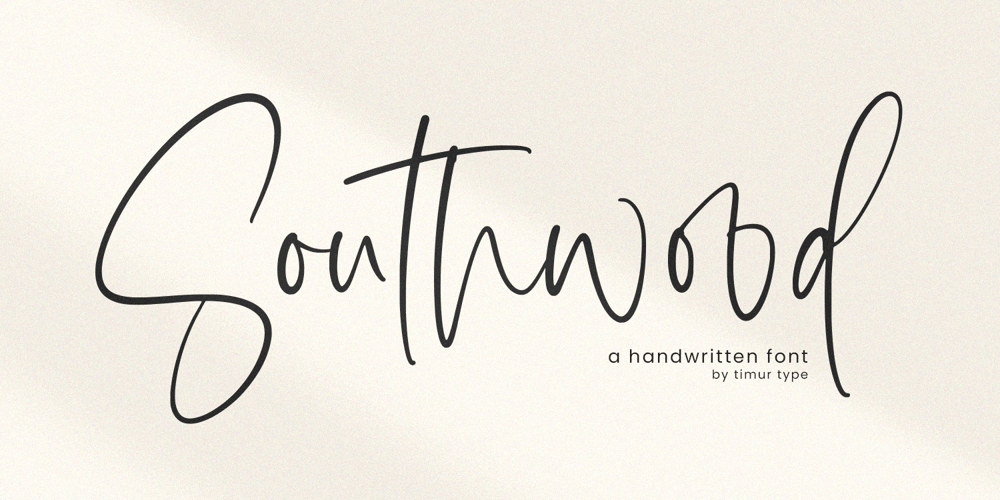
Southwood
Southwood font
Southwood Font Family was designed by Wara Sigit Tri Pamungkas and published by Timurtype. Southwood contains 1 styles and family package options. Introducing by Timur typeProudly Present, Southwood A Handwritten Script FontSouthwood is perfect for product packaging, branding project, megazine, social media, wedding, or just used to express words above the background.Southwood also multilingual support.Embelish your designs with our original fonts.Enjoy the font,Thank you!